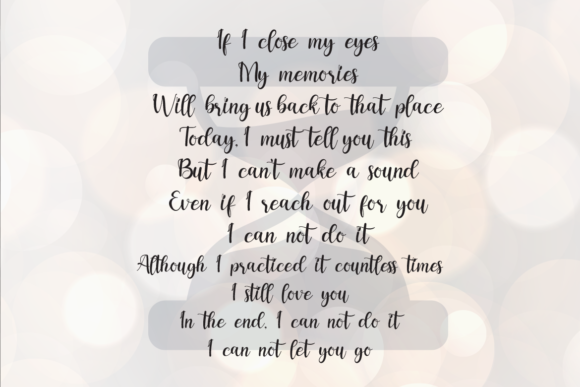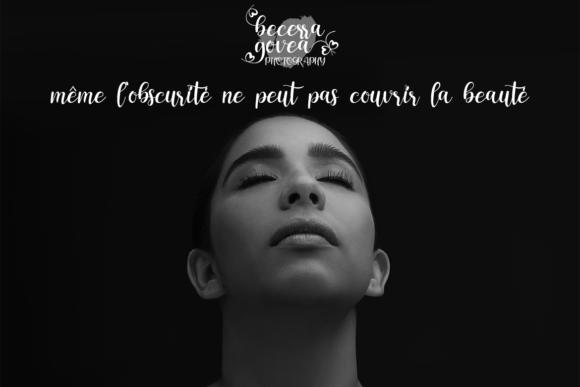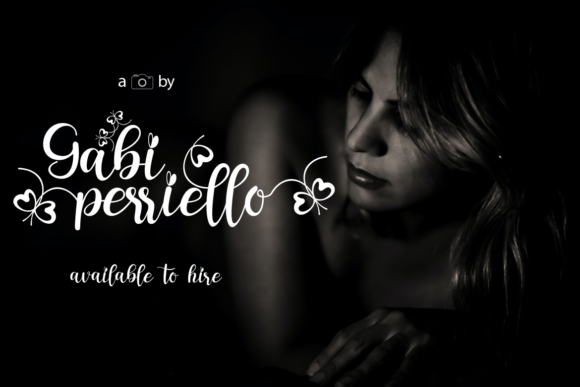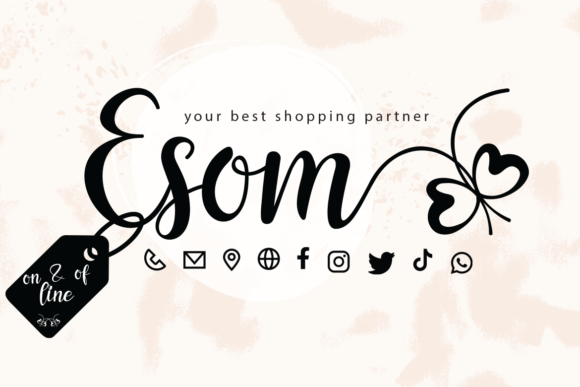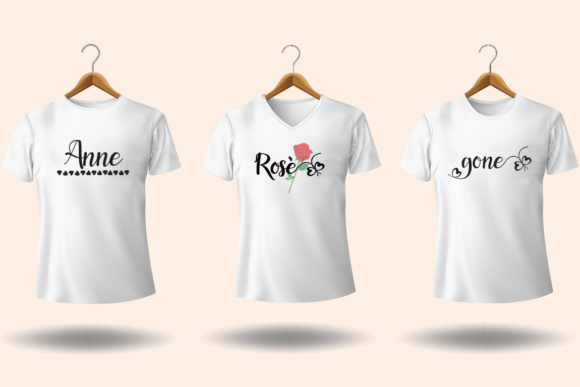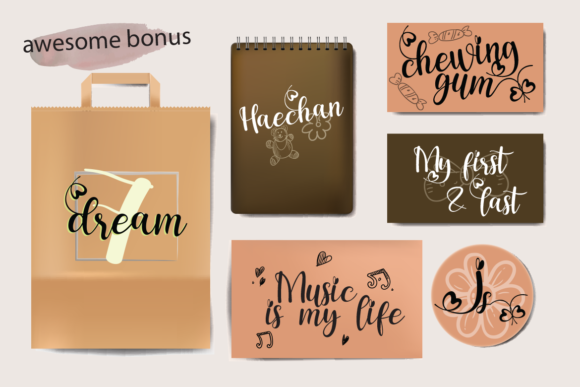
The Elegance of Beautiful Typography
Have you ever found yourself in a creative flow, pouring your heart and soul into a design project, only to feel like something’s missing? The perfect font can make all the difference. As a designer, you know that a beautiful font can elevate your work from good to great. That’s where the Elegance Font comes in – a stunning script font that exudes elegance and sophistication.
With its contemporary atmosphere and impeccable form, Elegance Font is inspired by timeless classic calligraphy. It’s not too thin, not too thick, but perfectly balanced and varied, making it the perfect addition to any project. Whether you’re working on a wedding invitation, a luxury brand logo, or a high-end marketing campaign, Elegance Font is sure to bring a touch of class and refinement.
Elegance Font Key Features
- Font Family: Elegance Font is available in 4 font families: Elegance Regular, Elegance Italic, Elegance Bold, and Elegance Bold Italic.
- Unique Characteristics: Elegance Font features elegant, refined lines and subtle curves, making it perfect for use in high-end design projects, such as luxury branding, fashion, and fine art.
- Language Support: The font supports a wide range of languages, including Latin, Cyrillic, and Greek scripts.
Elegance Font Review
As a designer, I had the chance to work with the Elegance Font, and I must say it’s a mixed bag. Here’s my honest review.
- Unique flair: Elegance Font has a distinctive feel that sets it apart from other fonts. Its flair and elegance are undeniable, making it perfect for projects that need a touch of sophistication.
- Legibility: The font is well-designed, with clear letterforms that make it easy to read even at smaller sizes.
- Consistency: The font is consistent throughout, with a uniform look that makes it easy to use in various applications.
- Limited character set: Elegance Font is a bit limited in terms of the character set it supports. This can be a problem if you need to use special characters or languages that require a larger character set.
- Not suitable for body text: While Elegance Font is great for headlines and titles, it’s not the best choice for body text due to its smaller size and more formal feel.
Overall impression
In conclusion, Elegance Font is a solid choice for projects that require a touch of elegance and sophistication. While it has some limitations, its unique flair and legibility make it a great option for designers looking to add a bit of glamour to their work.
Tips for Getting the Most Out of Elegance Font
For optimal results, use Elegance Font in combination with other elegant design elements, such as cursive scripts and ornate borders. You can also experiment with different font sizes and colors to create a unique visual effect.
Elegance Font is ideal for designing invitations, greeting cards, and other formal documents. It’s also suitable for creating elegant typography for websites, social media, and marketing materials.